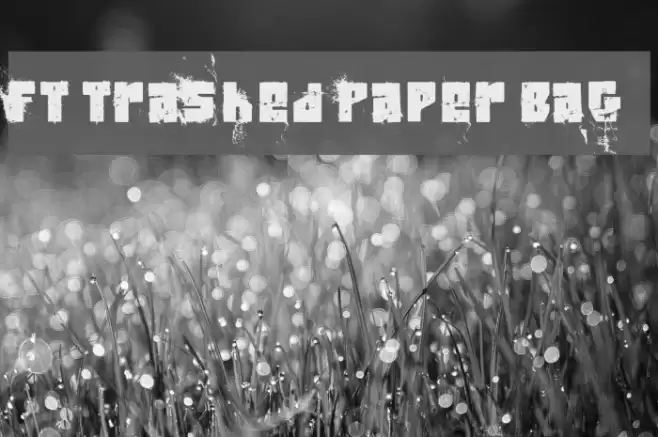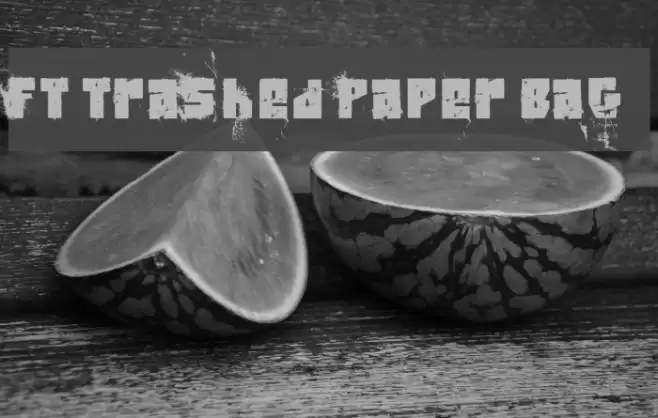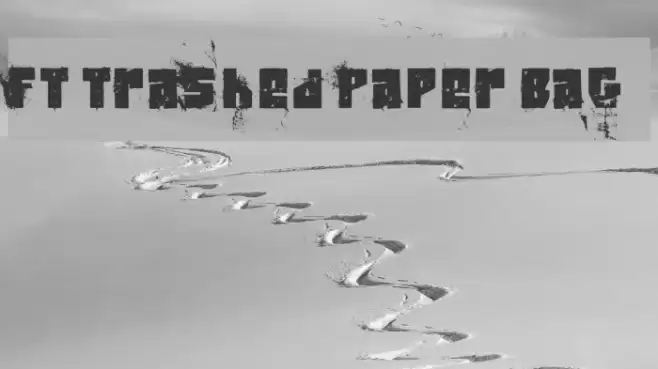
FT Trashed Paper Bag Font
FT Trashed Paper Bag Description
This font features a distressed and grungy style, reminiscent of worn-out textures and urban decay. The characters are bold and heavily textured, giving the appearance of being stamped or printed on rough surfaces. The uppercase and lowercase letters maintain a consistent rugged look, with irregular edges and a sense of chaos. The font's unique style makes it stand out, ideal for projects that require a raw, edgy aesthetic. Its boldness and texture suggest a strong visual impact, suitable for designs that aim to convey a sense of rebellion or nonconformity.
| Overall Style | Grunge, Urban, Distressed |
| Proposed Projects | Ideal for album covers, streetwear branding, posters, and urban-themed designs. |